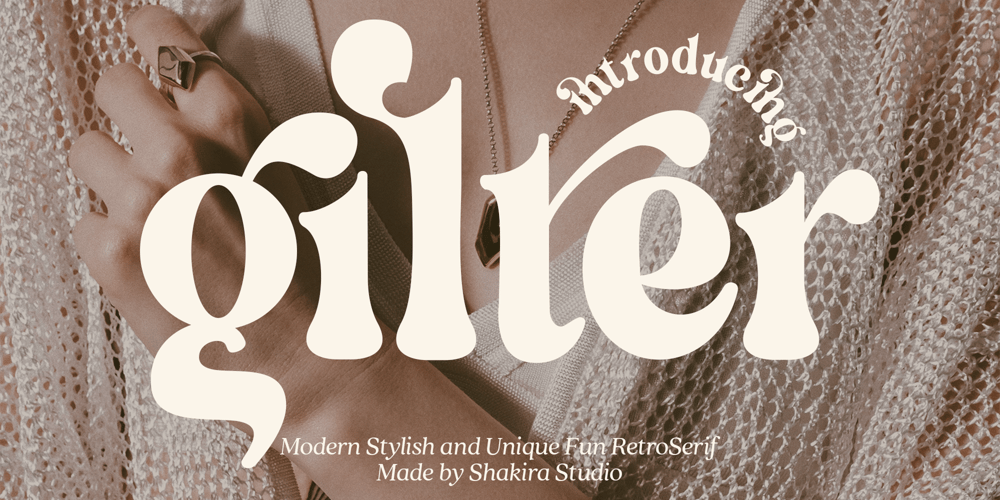
Gilter Font Family was designed by Idhham Cholid Rikzano Yahya and published by Shakira Studio. Gilter contains 2 styles and family package options. Start good day for new font! present to you, Gilter!Gilter is a font created specifically to give your designs a modern, stylish, and unique feel. With a combination of fun retro serif shapes and an elegant appearance, this font is the right choice for designs that want to display a creative impression and be different from the others.Gilter presents strong and tough-looking letter characters, but still maintains a friendly and welcoming impression. This makes this font very suitable for various types of projects, from branding, packaging, posters, to website design.What’s you get? Gilter Regular Gilter Italic Unique letterforms Works on PC & Mac Simple Installations Accessible in the Adobe Illustrator, Adobe Photoshop, Microsoft Word even work on Canva! PUA Encoded Characters Fully accessible without additional design software. I really hope you’ll get pleasure using Gilter font and it will be perfect addition to your font collection! If you have some questions, please write me a letter!Shakira Studio